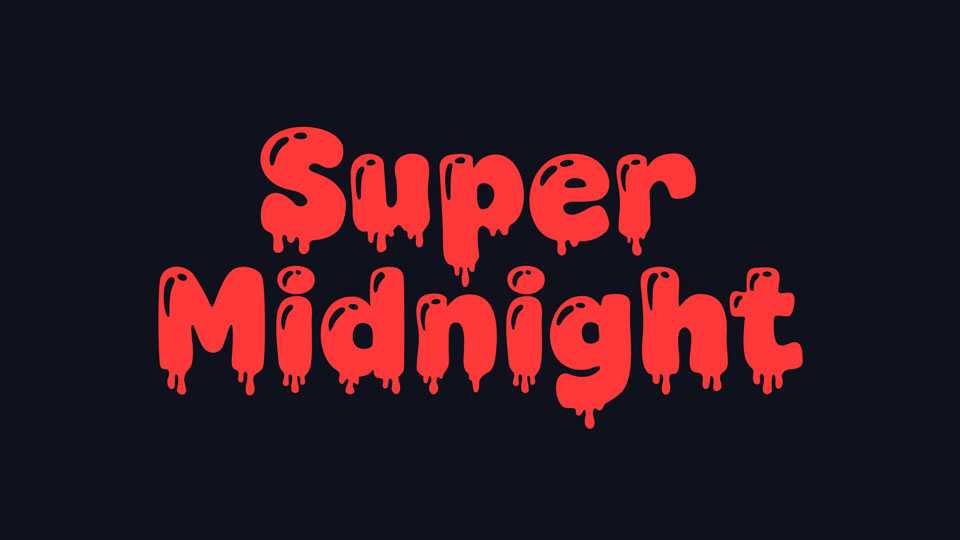
Download Super Midnight font, a bold, dripping display typeface inspired by late-night horror, street posters, and playful darkness. Its soft, rounded shapes combined with melting details create a fun yet eerie personality that feels both spooky and cartoonish.